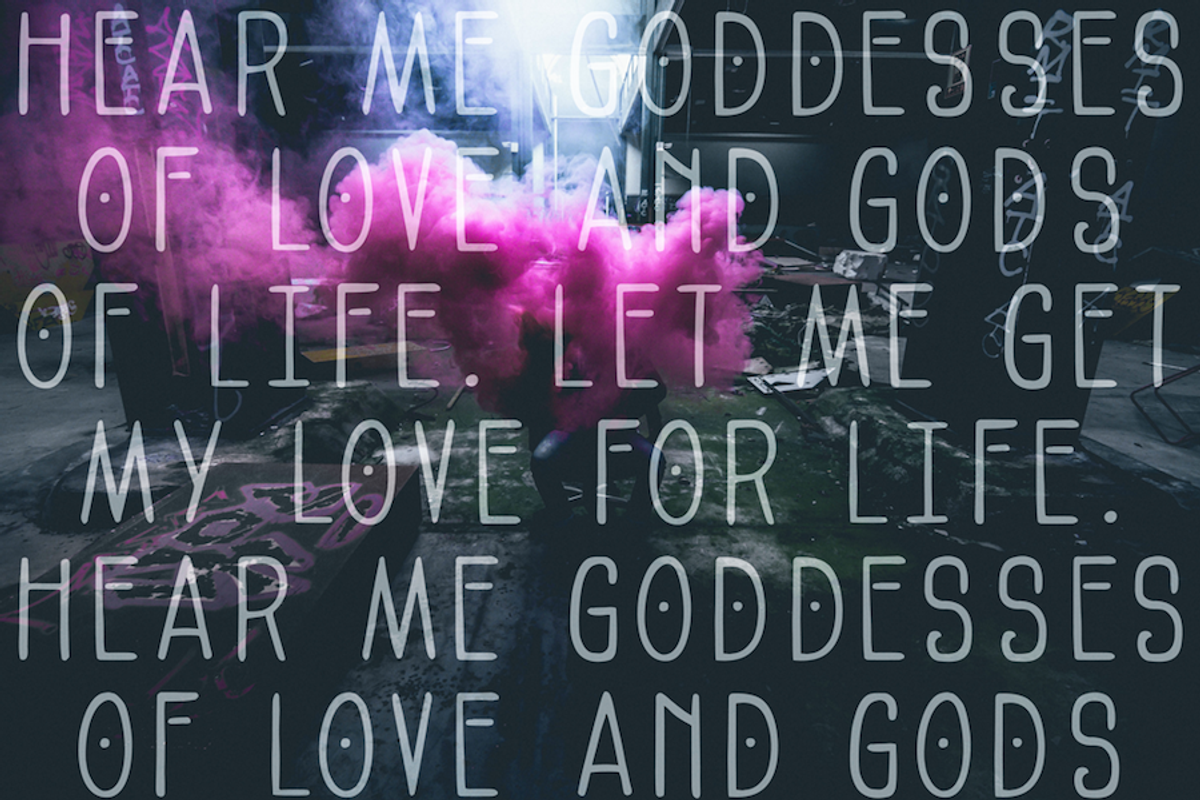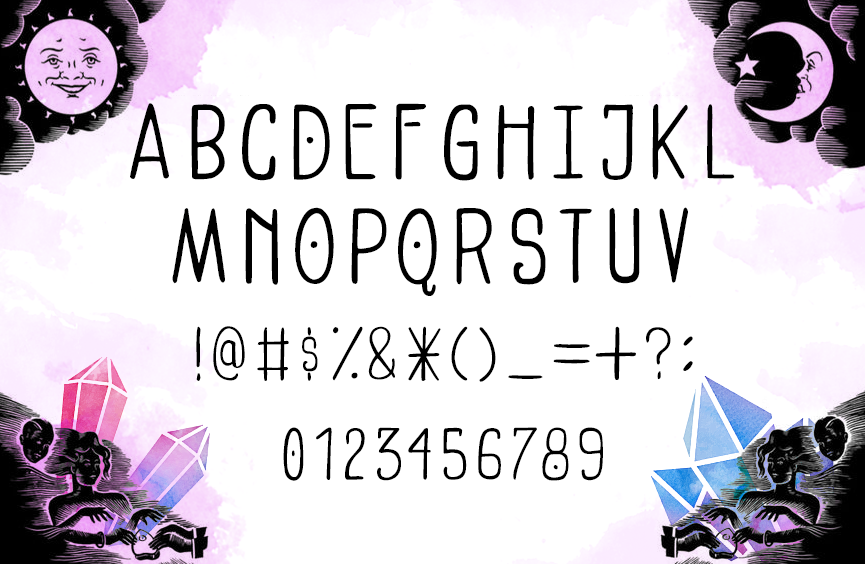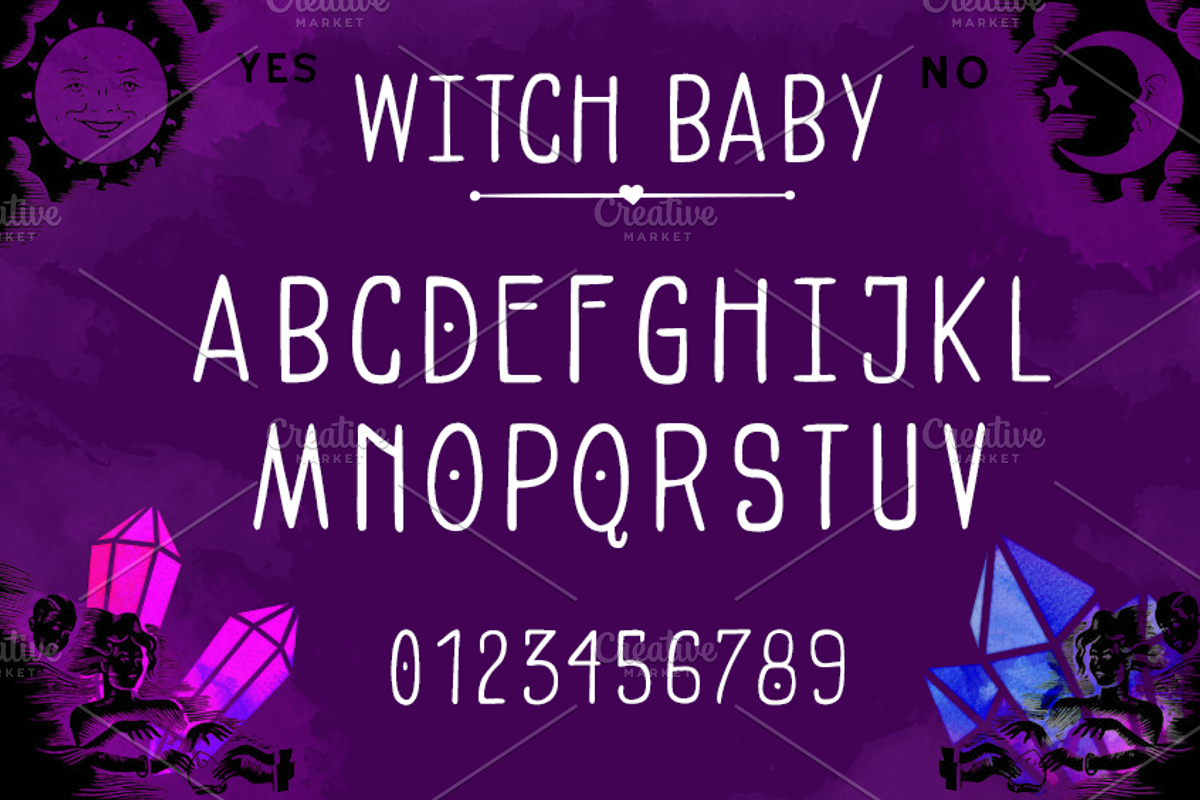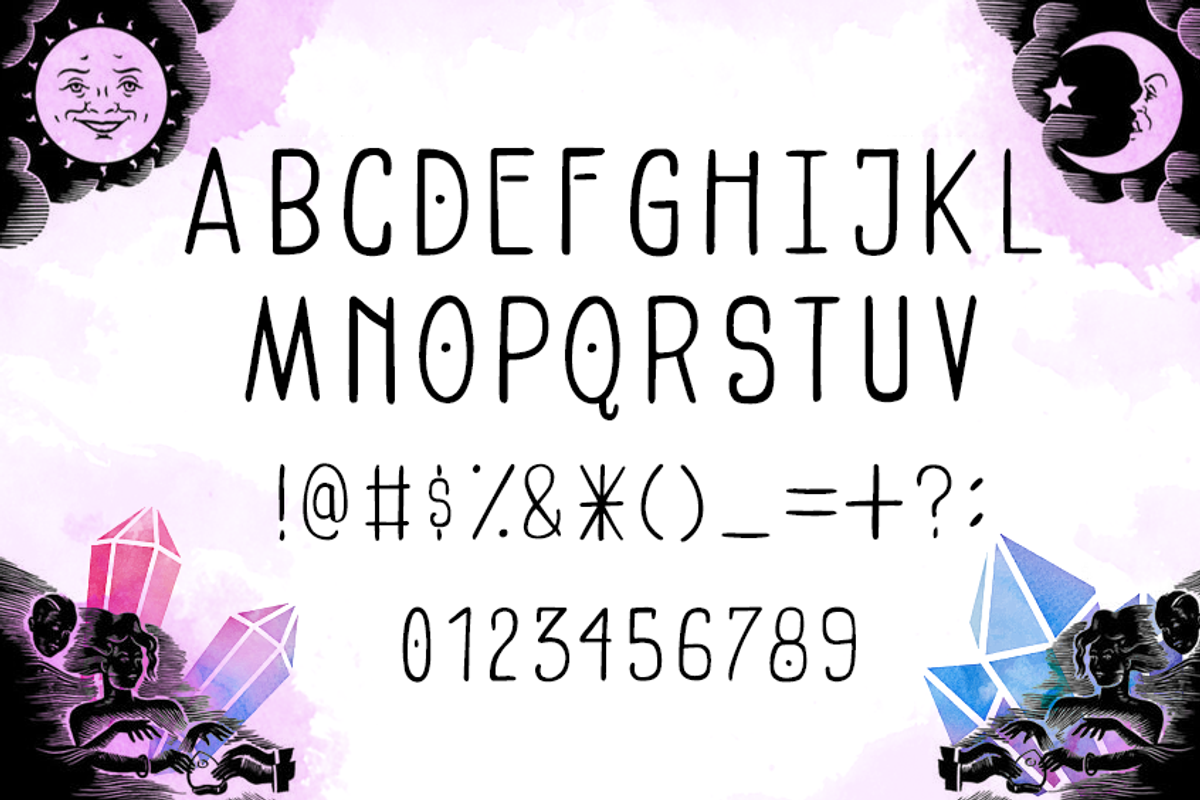
Witch Baby Font
Witch Baby is an uppercase hand lettered font that's a little cryptic.
Great for headlines, quotes and logos.
Comes with numbers and punctuation.